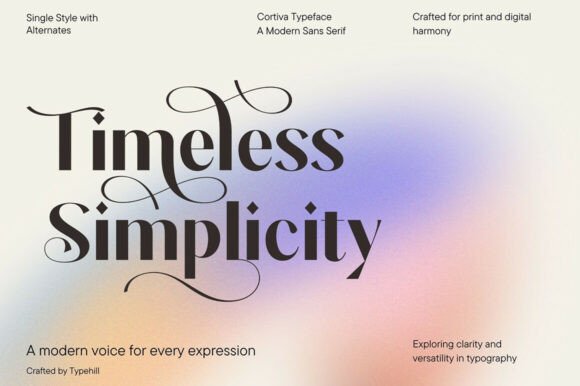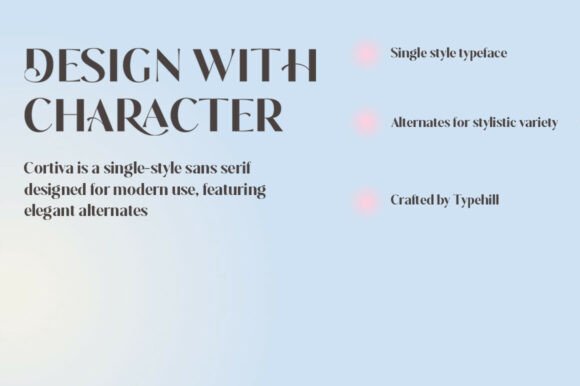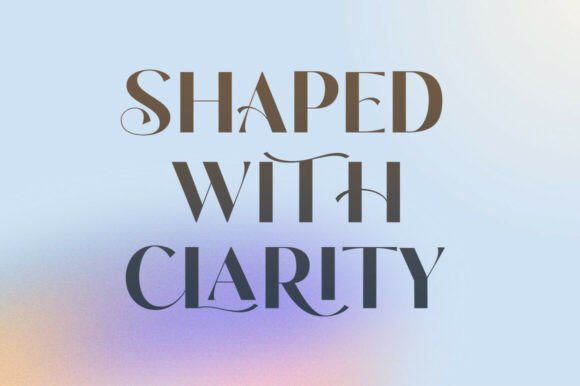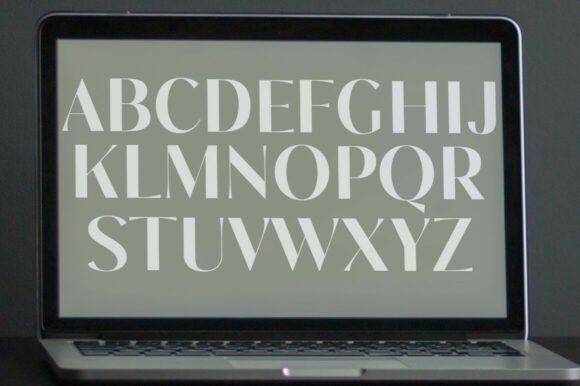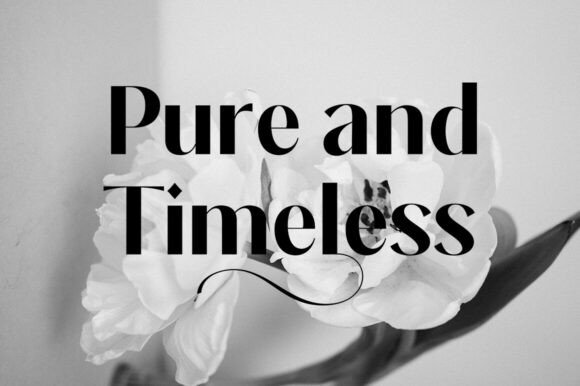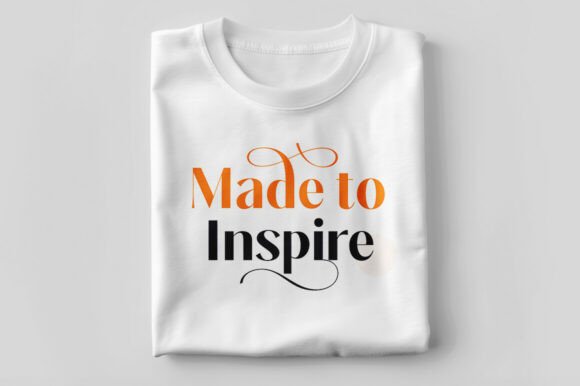
Cortiva Font: Elevate Your Design with Modern Elegance and Timeless Charm
In the world of typography, few fonts manage to strike a balance between modern sophistication and timeless elegance. Cortiva Font is one such refined typeface that has captured the attention of designers and crafters alike with its striking contrasts and graceful details. This beautiful font is designed to bring a touch of luxury and romance to any creative project, making it an essential choice for those who value beauty and functionality in perfect harmony.
The Unique Characteristics of Cortiva Font
Cortiva’s letterforms are characterized by bold strokes paired with delicate curves, creating a stunning balance of strength and sophistication. This harmonious blend of contrasting elements makes text appear both powerful and stylish. The font’s subtle flourishes and sculpted terminals add a distinctive personality, setting it apart from more traditional typefaces.
One of the standout features of Cortiva is its versatility. Whether you’re working on branding, editorial layouts, invitations, packaging, or luxury design projects, this font adapts seamlessly to any creative endeavor. Its expressive tone and polished aesthetic make it an excellent choice for designers looking to elevate their work into a statement of elegance and refinement.
Cortiva Font in Design Applications
Cortiva’s adaptability and luxurious feel make it an ideal choice for a wide range of design applications. Here are a few ways designers and crafters can utilize this beautiful font:
- Branding: Establish a strong brand identity with Cortiva’s bold yet elegant letterforms. Its unique character is sure to leave a lasting impression on your audience.
- Editorial Layouts: Add a touch of sophistication to magazines, newspapers, and digital publications with Cortiva’s refined typography.
- Invitations: Create stunning invitations for weddings, galas, and other special events with Cortiva’s romantic and luxurious feel.
- Packaging: Elevate product packaging with Cortiva’s elegant typography, making your products stand out on store shelves.
- Luxury Design Projects: Perfect for high-end design projects, Cortiva brings a level of sophistication and glamour that’s hard to match.
Why Choose Cortiva Font?
For designers and crafters looking for a font that combines modern elegance with timeless charm, Cortiva is an exceptional choice. Here are a few reasons why:
- Unique Design: Cortiva’s striking contrasts and graceful details make it a standout in the world of typography.
- Versatility: Its adaptability to various design applications makes Cortiva a valuable addition to any designer’s toolkit.
- Expressive Tone: The font’s expressive tone and polished aesthetic bring a level of sophistication to any creative project.
- Beauty and Functionality: Cortiva strikes the perfect balance between beauty and functionality, making it an essential choice for designers who value both.
Cortiva Font is a refined typeface that offers a perfect blend of modern elegance and timeless charm. Its unique characteristics, versatility, and expressive tone make it an excellent choice for designers and crafters looking to elevate their creative work. Whether you’re working on branding, editorial layouts, invitations, packaging, or luxury design projects, Cortiva is sure to bring a touch of sophistication and glamour to your designs. With its striking contrasts and graceful details, Cortiva Font is an essential choice for anyone who values beauty and functionality in perfect harmony.